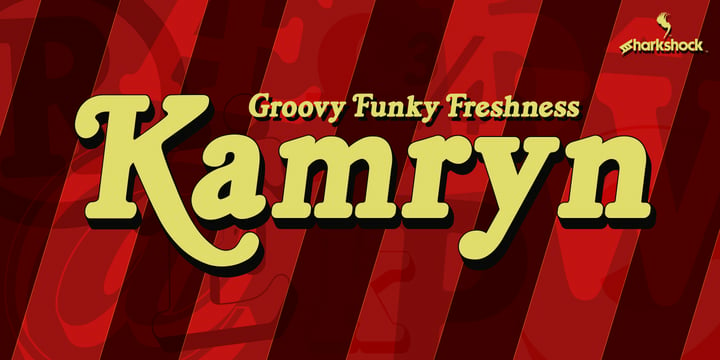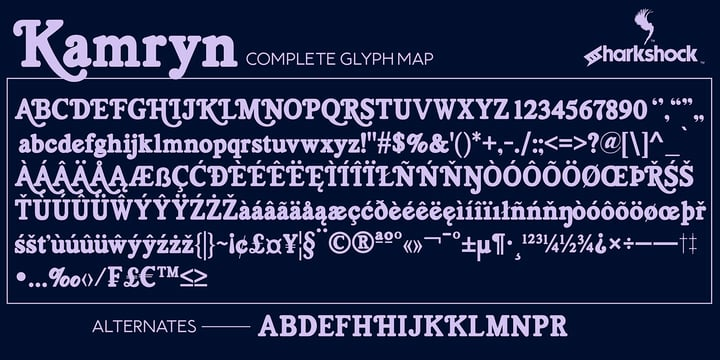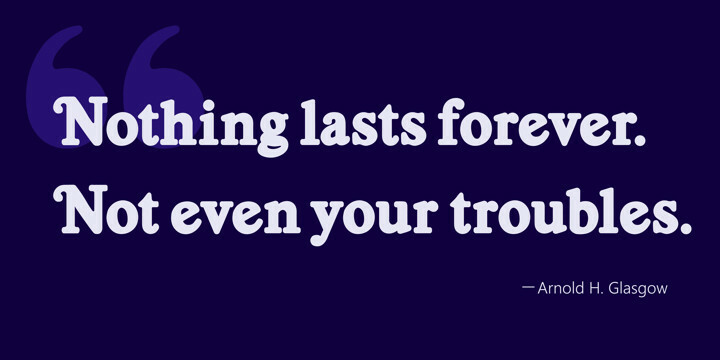
Kamryn Font Family
Kamryn Font FamilyKamryn is an updated overhaul of an earlier project. This version retains a distinct retro look with swashes and rounded serifs. This gives it a wholesome feel that will work well in children’s books, 80’s era apparel, or scrapbooking. European accents and extended punctuation were added along with improved kerning and alternates. Overlap may occur in certain uppercase/lowercase combinations. The 3D versions are equipped with several ligatures that correct this.